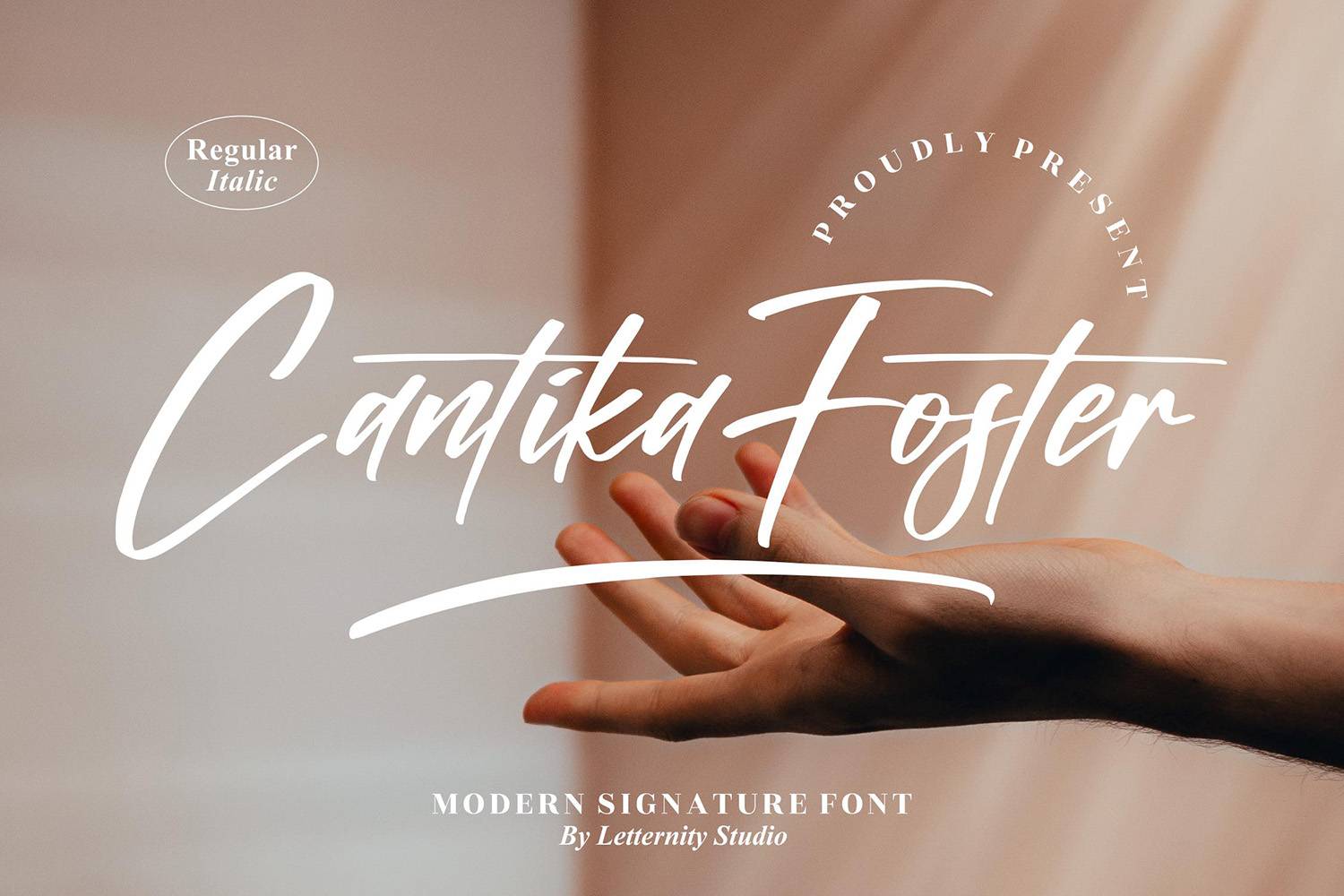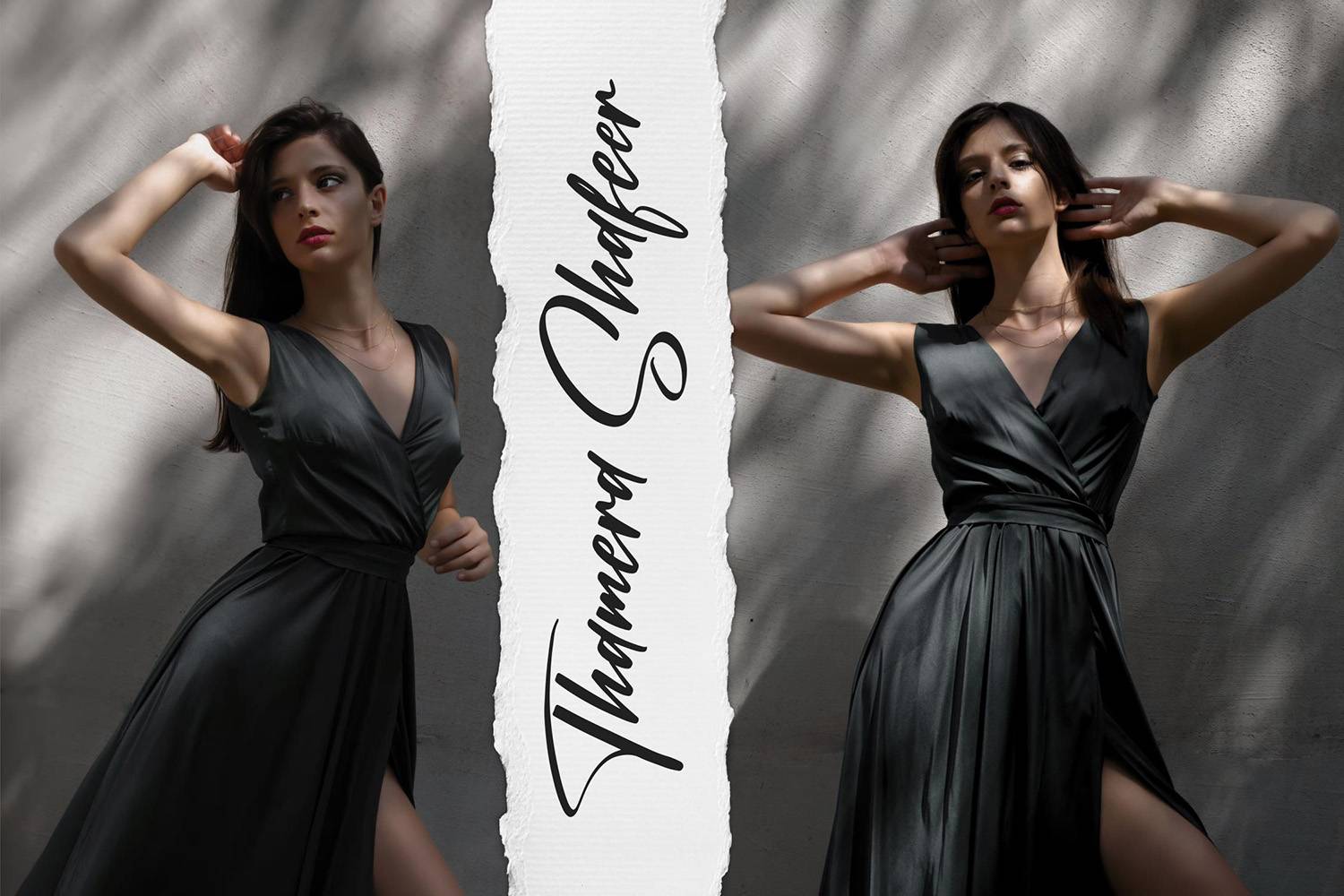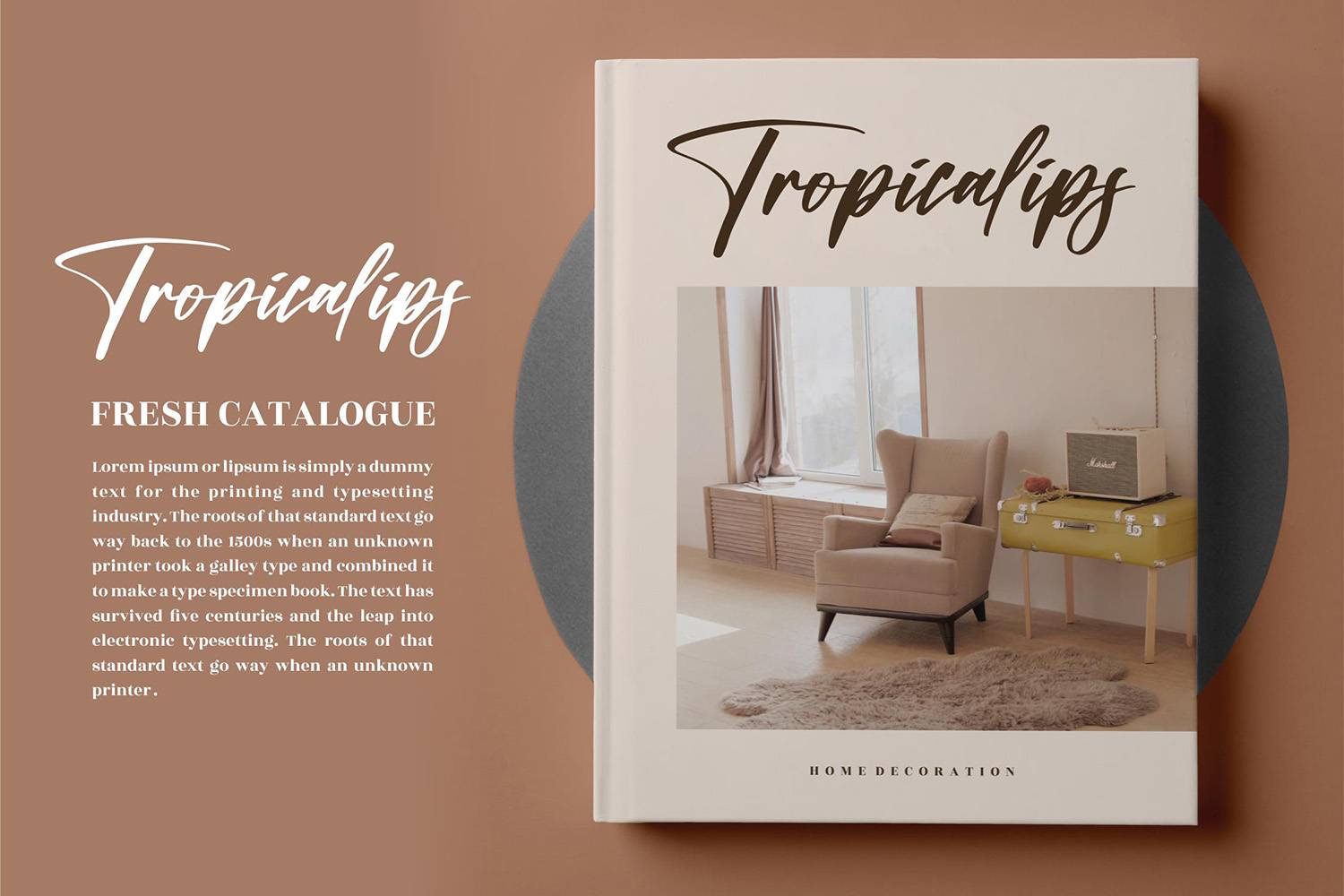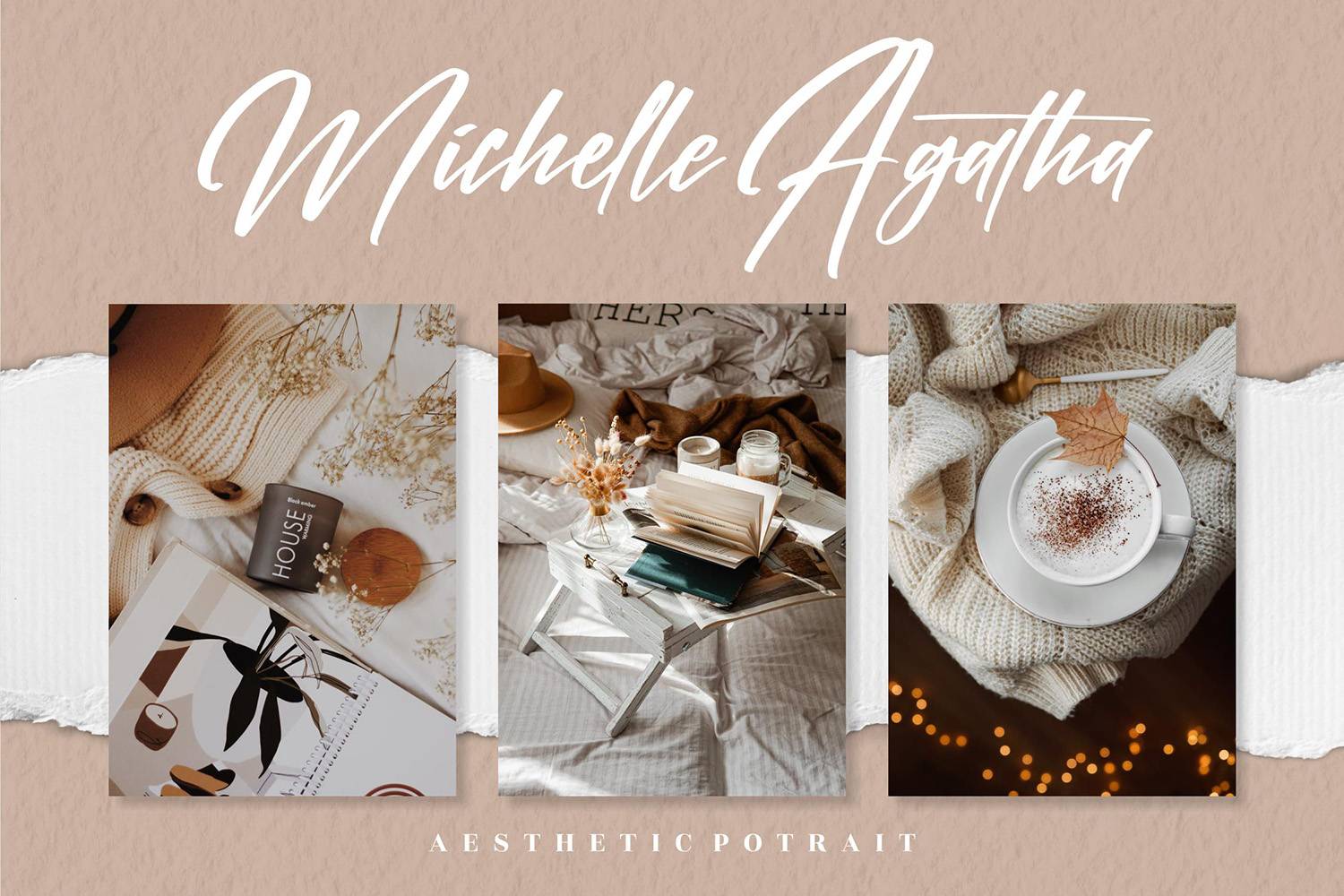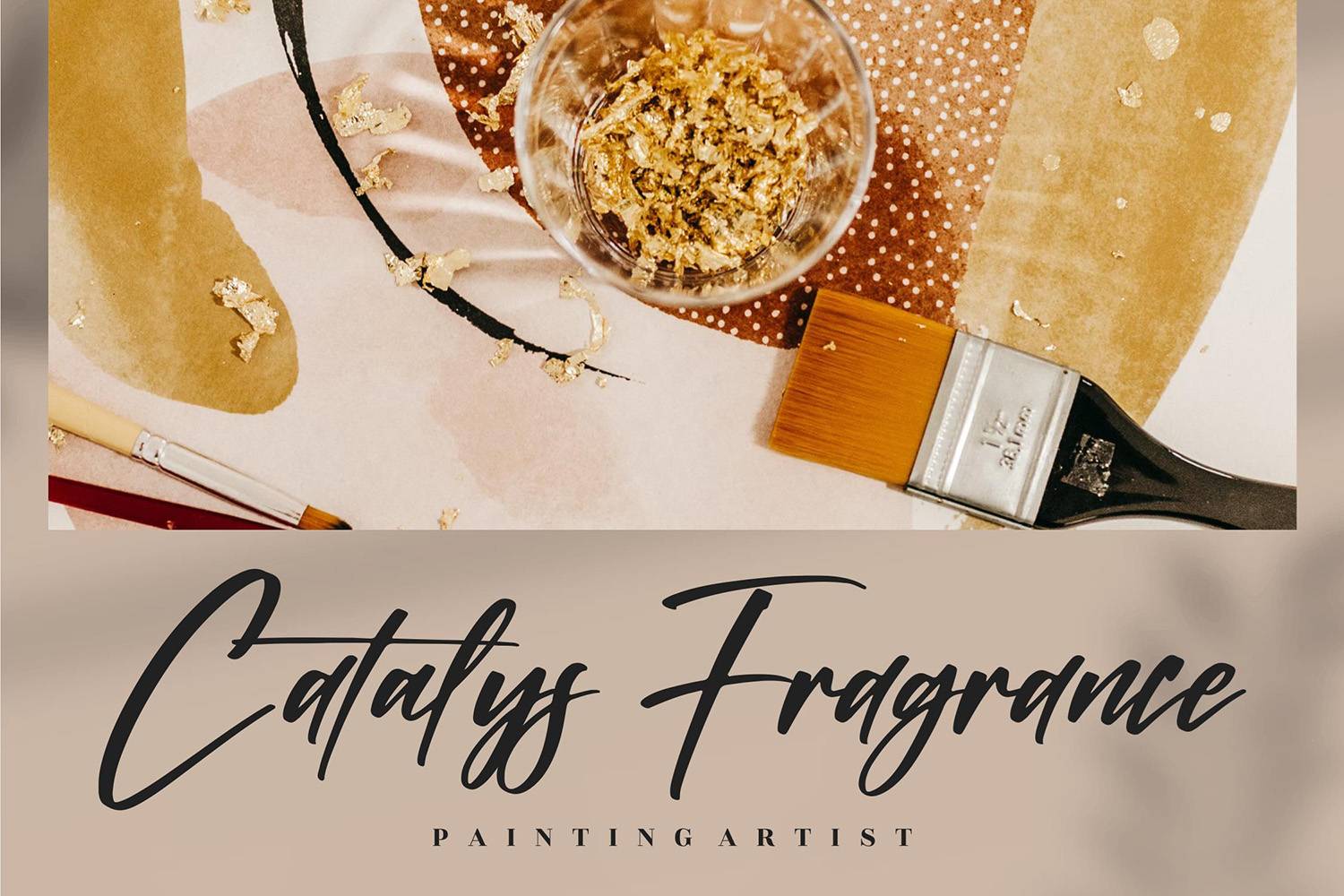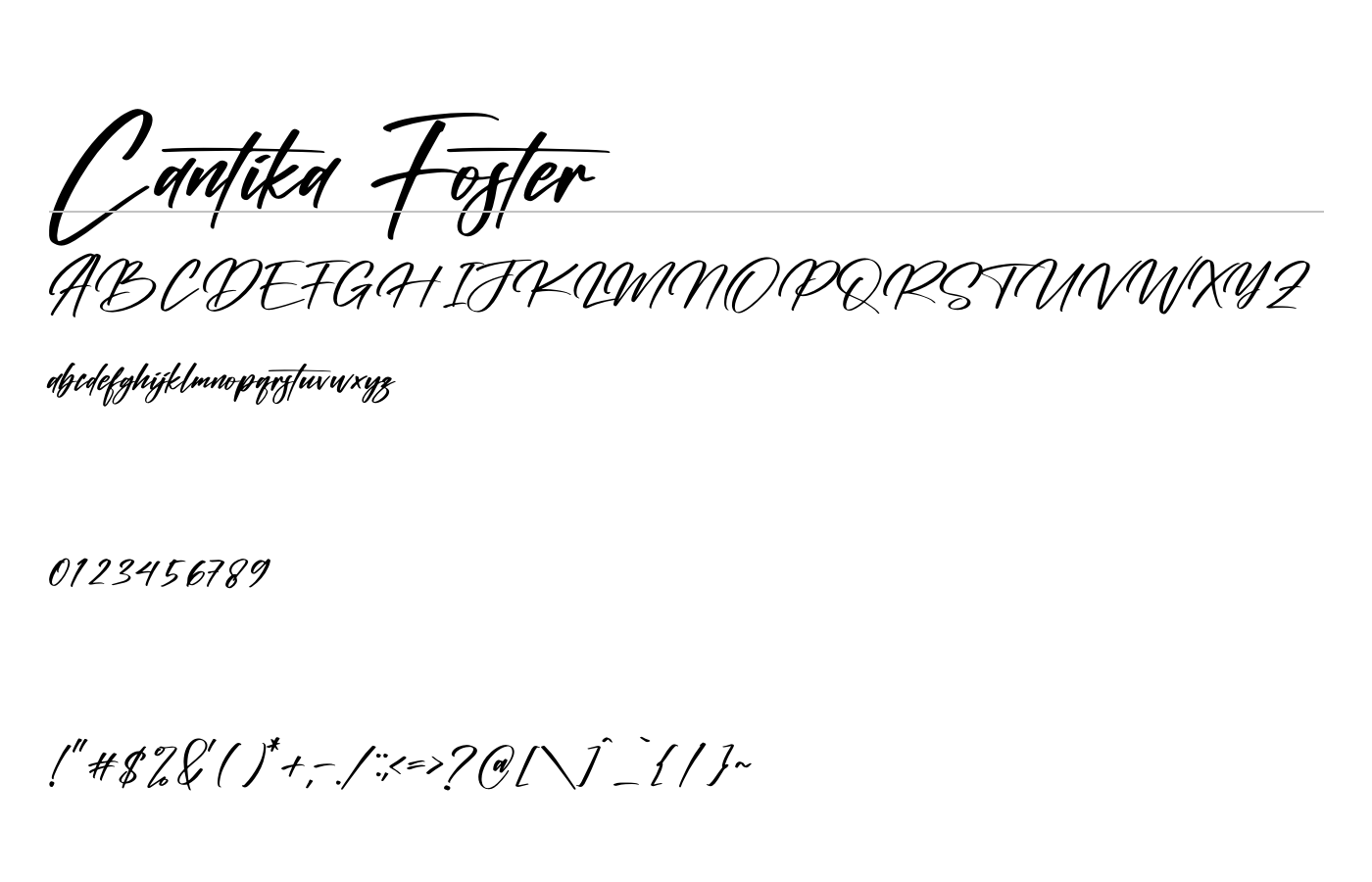
Cantika Foster is an elegant script font with a modern, handwritten feel characterized by smooth, flowing strokes and a lively, casual style. Its slender, slightly slanted letterforms with moderate contrast give it a refined yet approachable personality, perfect for branding, invitations, and fashion projects that want to convey sophistication with a personal touch. This font works especially well in logos and headlines where a stylish, creative impression is desired.
Cantika Foster Font
About Cantika Foster Font